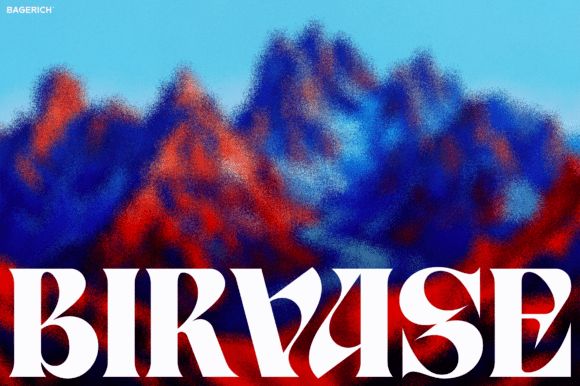
The Perfect Harmony of Form and Function: Birvase Font
As designers, we’ve all been there – staring at a blank canvas, searching for the perfect combination of style and substance to convey our message. The moment of truth arrives when we discover a font that not only elevates our work but also tells a story of its own. For those seeking a high-impact display font that defies conventions, the answer lies in the Birvase Font.
This enigmatic font masterfully weaves together traditional serif elegance and avant-garde geometric flair, creating a unique visual language that’s both timeless and forward-thinking. By incorporating the Birvase Font into our designs, we can infuse a sense of strength, adventure, and high-end sophistication that resonates with our audience. Whether we’re crafting a luxurious brand identity or a cinematic poster, this font provides a rhythmic, almost musical flow to text that’s impossible to ignore.
Birvase Font Key Features
- Unique Characteristics: Birvase Font features a unique blend of geometric and organic elements, resulting in a distinctive and modern aesthetic.
Birvase Font Review
I recently had the chance to work with the Birvase Font, and I must say it’s a mixed bag. On the plus side, here are some things that work well:
- ✨ The font’s clean and modern design is a great addition to any project. It’s versatile and can be used for a variety of purposes.
- ✨ The font is highly legible, making it perfect for body text and headings. It’s easy to read, even at smaller font sizes.
- ✨ The font has a wide range of weights, from light to bold, which makes it easy to customize to fit your project’s needs.
- ⚠️ The font’s x-height is a bit on the small side, which can make it difficult to read at very small font sizes.
- ⚠️ The font’s italic and oblique styles are not as polished as the regular styles, which can be a bit distracting.
- ⚠️ The font’s support for non-Latin scripts is limited, which can be a problem if you need to work with languages other than English.
Overall, I think the Birvase Font is a solid choice for most projects. While it has some limitations, its clean design and wide range of weights make it a great addition to any font collection. With a bit of tweaking and customization, it can be a real asset to your designs.
Birvase Font is commonly used in:
1. Branding and logo design.
2. Web design and development.
3. Print design and marketing materials